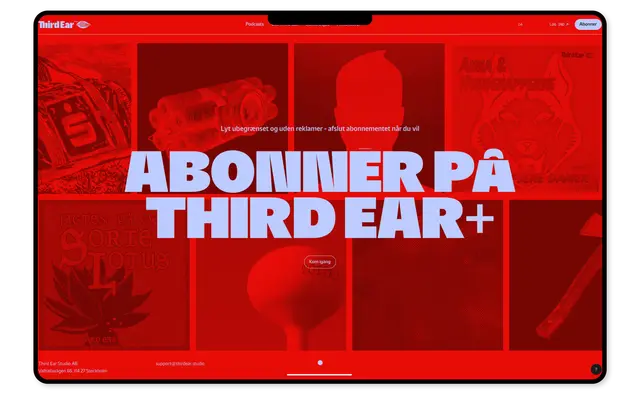
NaN Hyena
NaN · Reymund Schröder · 2021
NaN Hyena specimen from NaN
A humanist sans in three subfamilies, each named for a time of day and distinguished by contrasting terminal treatments drawn from the calligraphic work of Hildegard Korger.
Designed by Reymund Schröder as a typographic extrapolation of 20th-century calligrapher Hildegard Korger's work, the family is structured around three named subfamilies: Sunrise with concave stem sections, Noon with flat terminals and settled neutrality, and Sunset with rounded forms and hair-thin connections. Rather than a conventional weight hierarchy, the three styles function as a spectrum of mood, intended to be mixed on the same page or even within the same word. Supporting 219 Latin-based languages, the family spans seven weights per subfamily.
A humanist sans extrapolated from the work of calligrapher and type designer Hildegard Korger, with three subfamilies that each interpret humanist letterform tradition through distinct terminal treatments ranging from concave to flat to rounded.